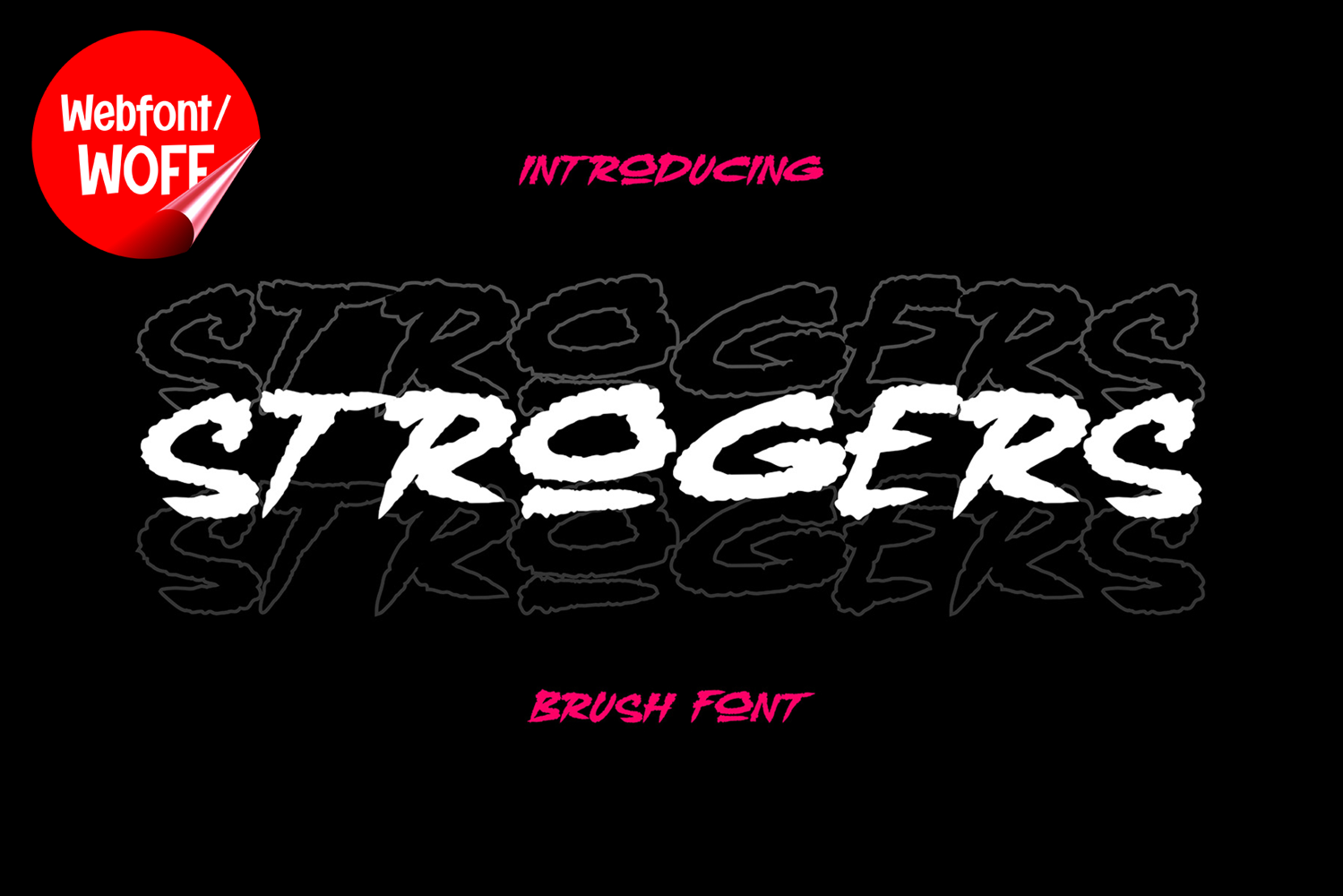
Strogers | Brush Webfont for Bold Creative Design
Strogers is a brush webfont designed to bring expressive energy and handcrafted style into modern website design. Inspired by bold brush lettering, artistic strokes, and contemporary display typography, this font features dynamic movement and textured details that create a strong and creative visual identity. It is an excellent choice for projects that aim to deliver an energetic, stylish, and visually engaging typographic appearance.
Strogers includes a complete set of uppercase characters designed with expressive brush-style aesthetics. The letterforms feature bold strokes, natural curves, and fluid movement that create an authentic hand-painted appearance. These characteristics make it ideal for headlines, banners, hero sections, branding layouts, and featured content where strong visual impact and artistic style are essential.
In addition to letters, the font includes numbers and punctuation, allowing flexible usage across various parts of a website. It works well for creative portfolios, fashion branding, music promotions, lifestyle blogs, event graphics, and digital campaigns. Each character maintains a consistent brush style, ensuring a cohesive and unified visual identity throughout the design.
With multilingual support, Strogers includes a wide range of accented characters, making it suitable for international websites and global audiences. This ensures content remains clear and visually consistent across different languages while preserving the expressive and artistic aesthetic.
The brush style of Strogers makes it especially suitable for creative agencies, streetwear branding, sports graphics, entertainment projects, and modern digital campaigns. Its bold and textured appearance creates a dynamic atmosphere that helps websites stand out in visually competitive environments. The handcrafted brush details add movement and creativity while maintaining a clean and modern visual balance.
Despite its expressive and decorative appearance, Strogers is designed with readability in mind. The spacing and proportions are carefully balanced to ensure clarity, particularly in display sizes. This allows designers to use the font effectively for impactful headings and promotional text without sacrificing usability.
Strogers is a webfont that combines handcrafted brush aesthetics with modern digital performance. Its energetic strokes, artistic structure, and bold character create a distinctive typographic presence that enhances website design. For projects that require a stylish, creative, and visually engaging brush font, Strogers offers a versatile and powerful solution.